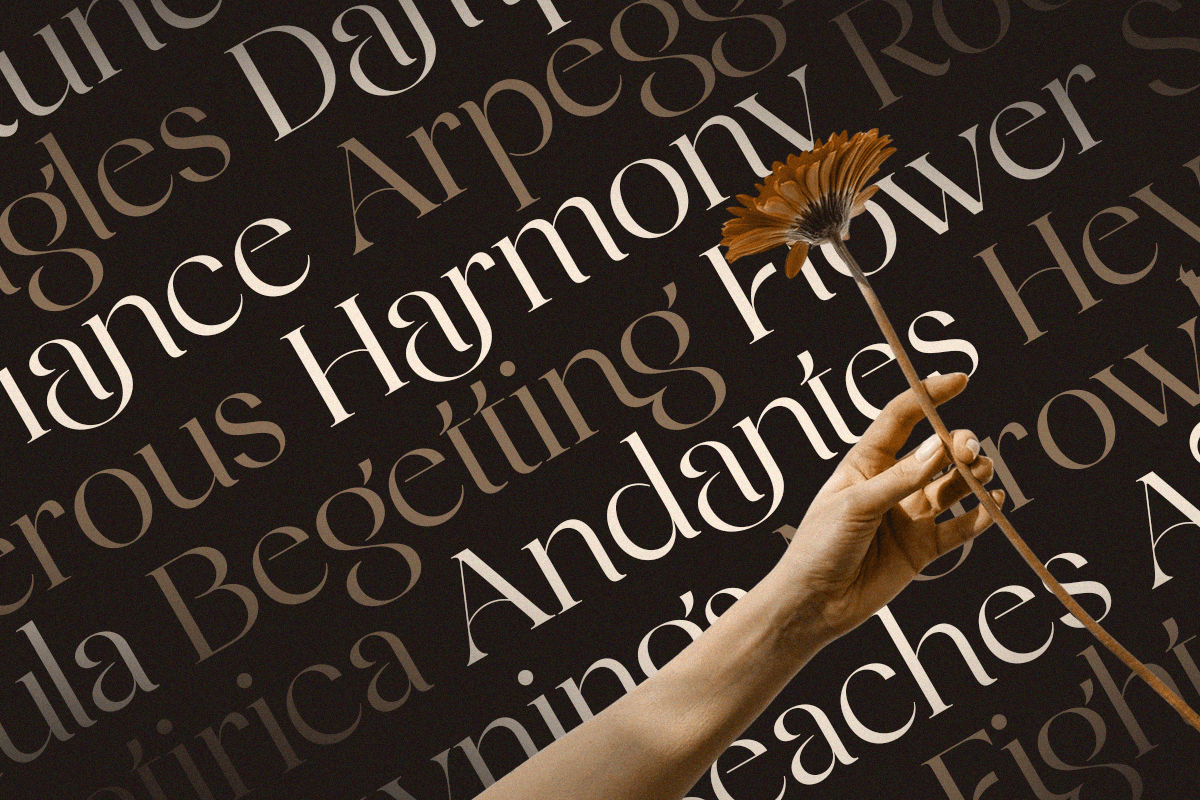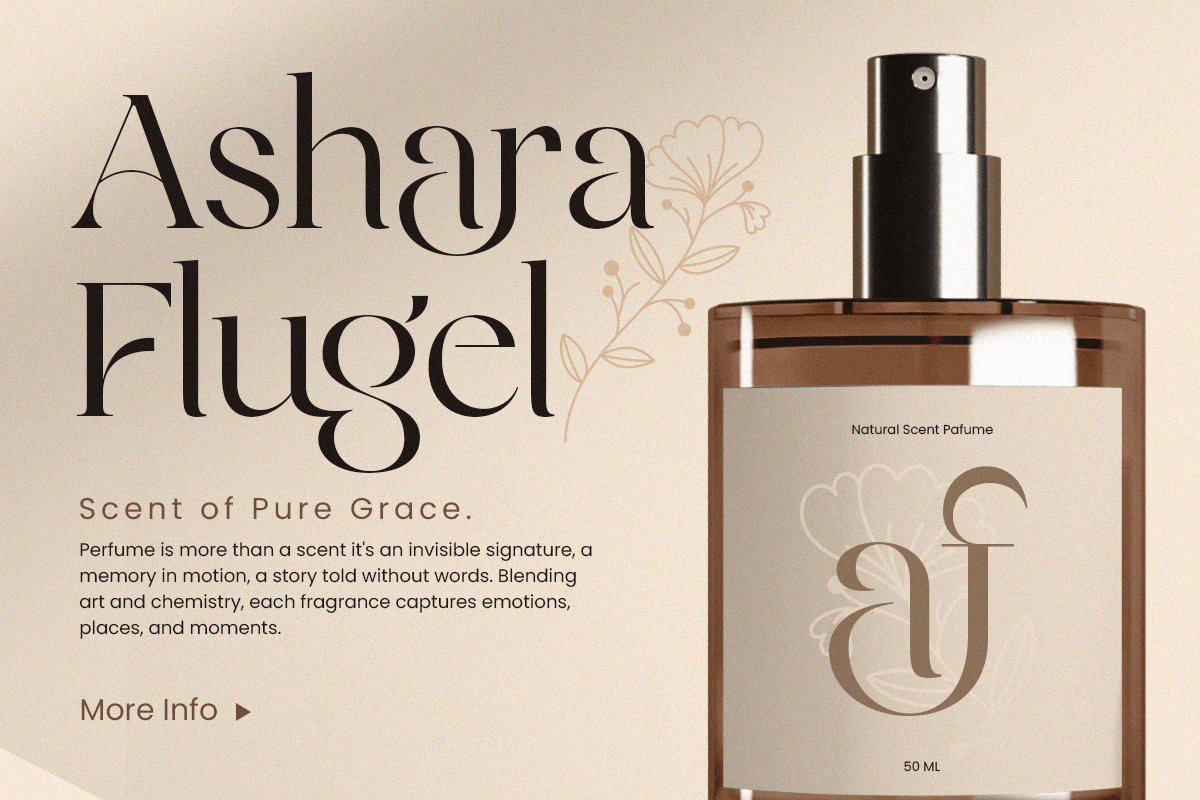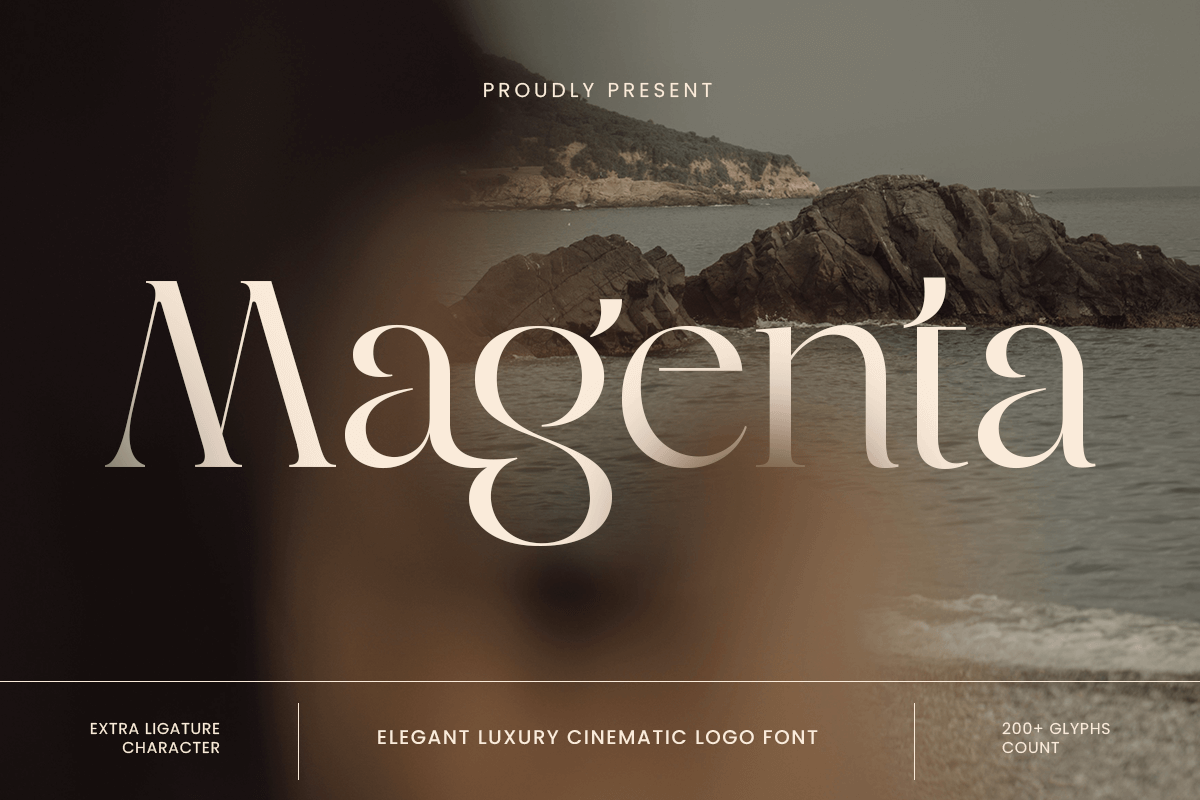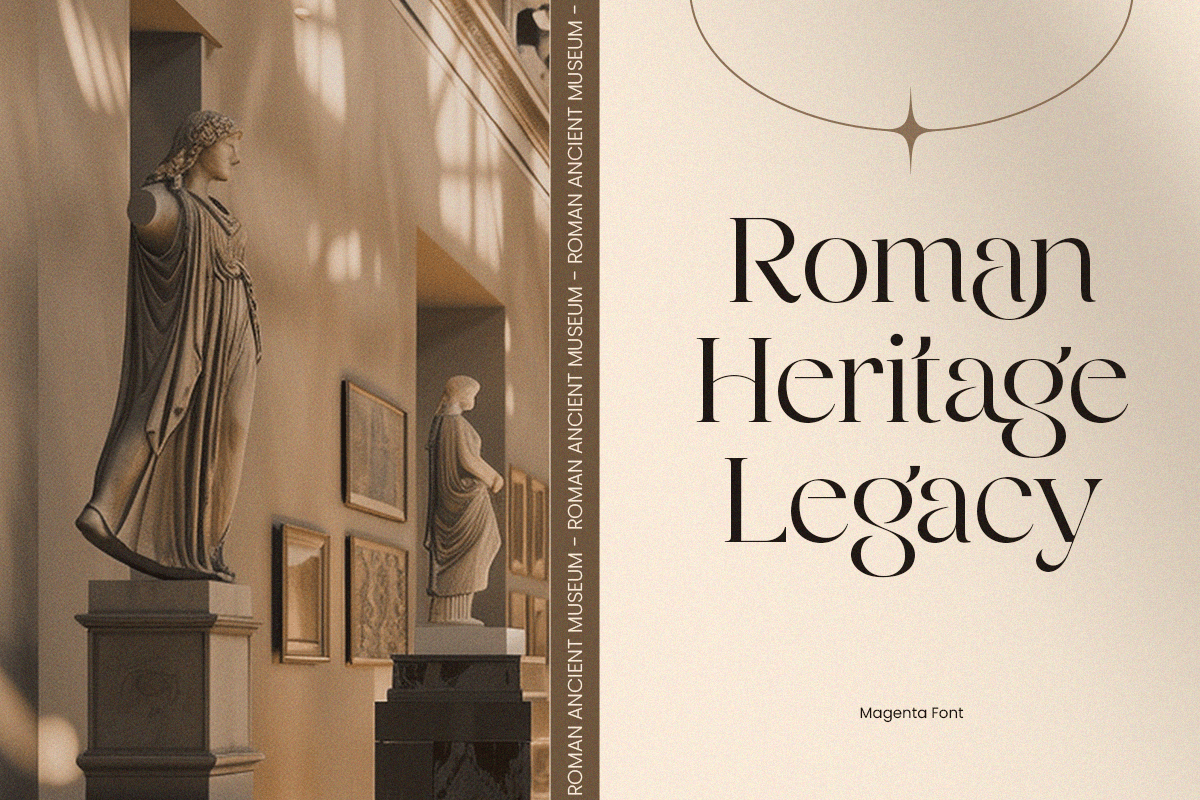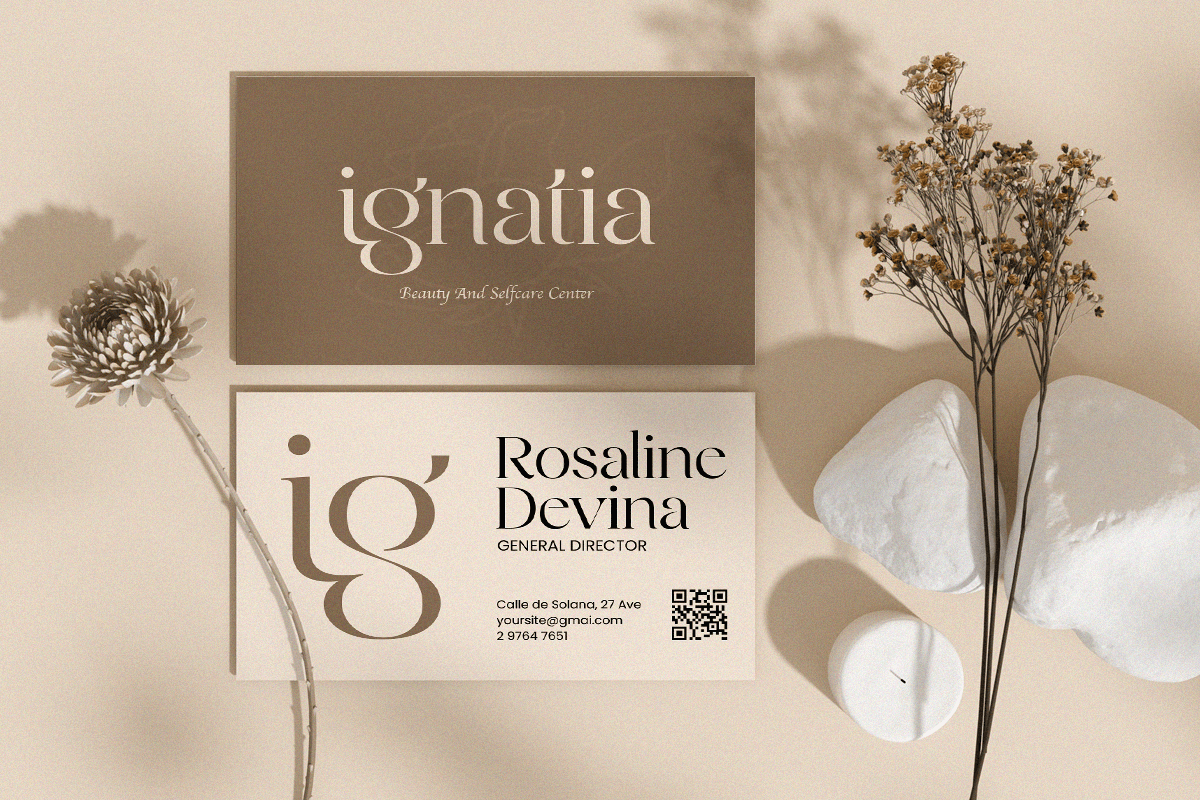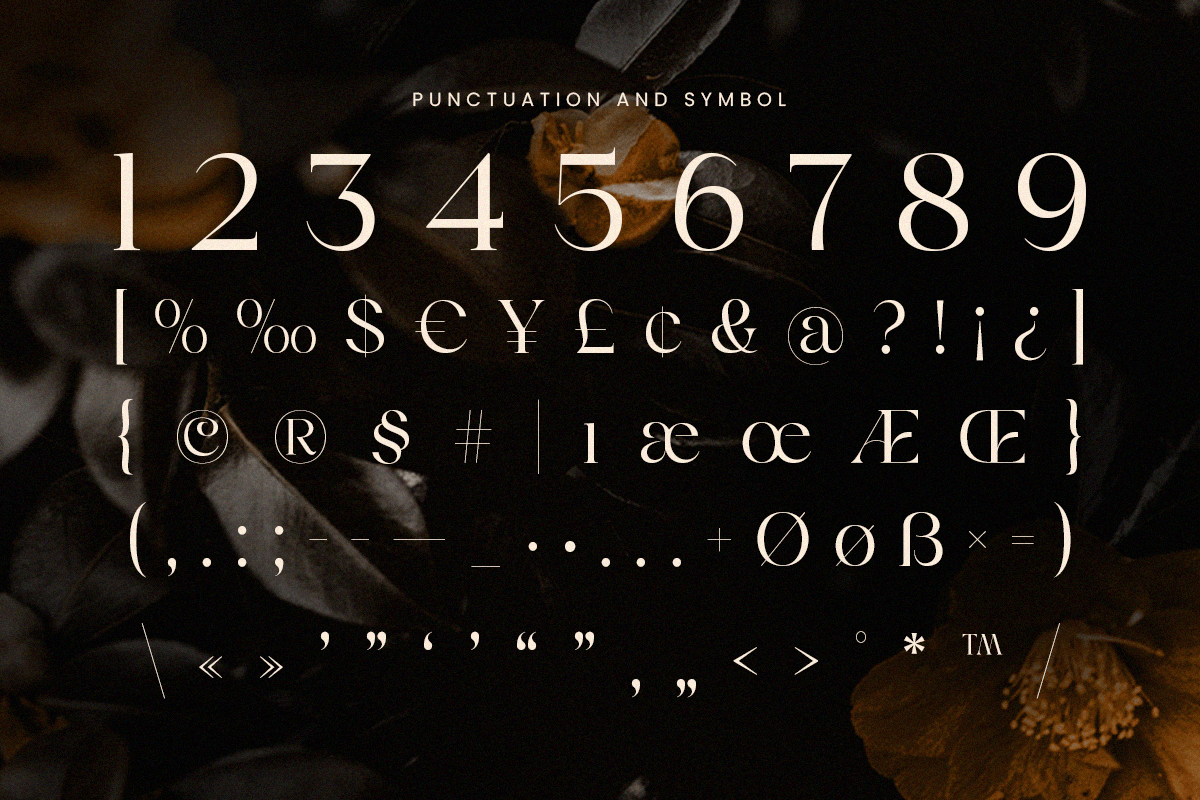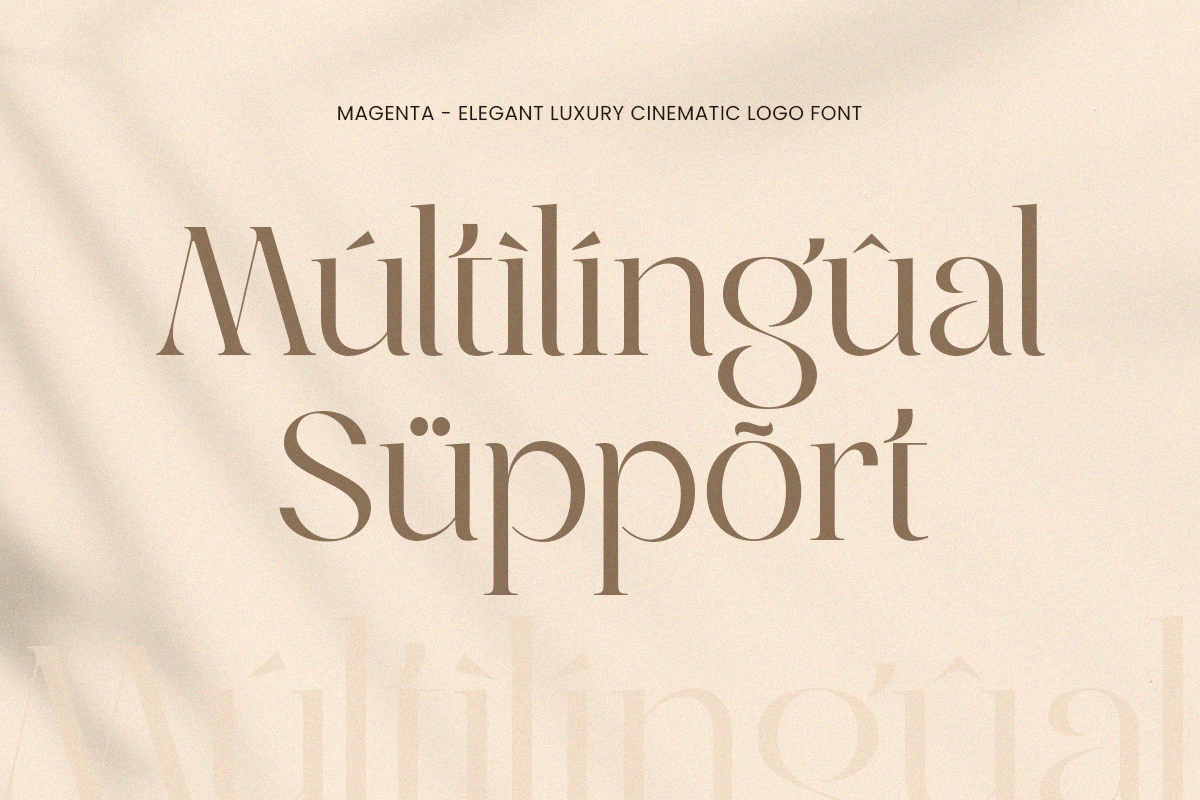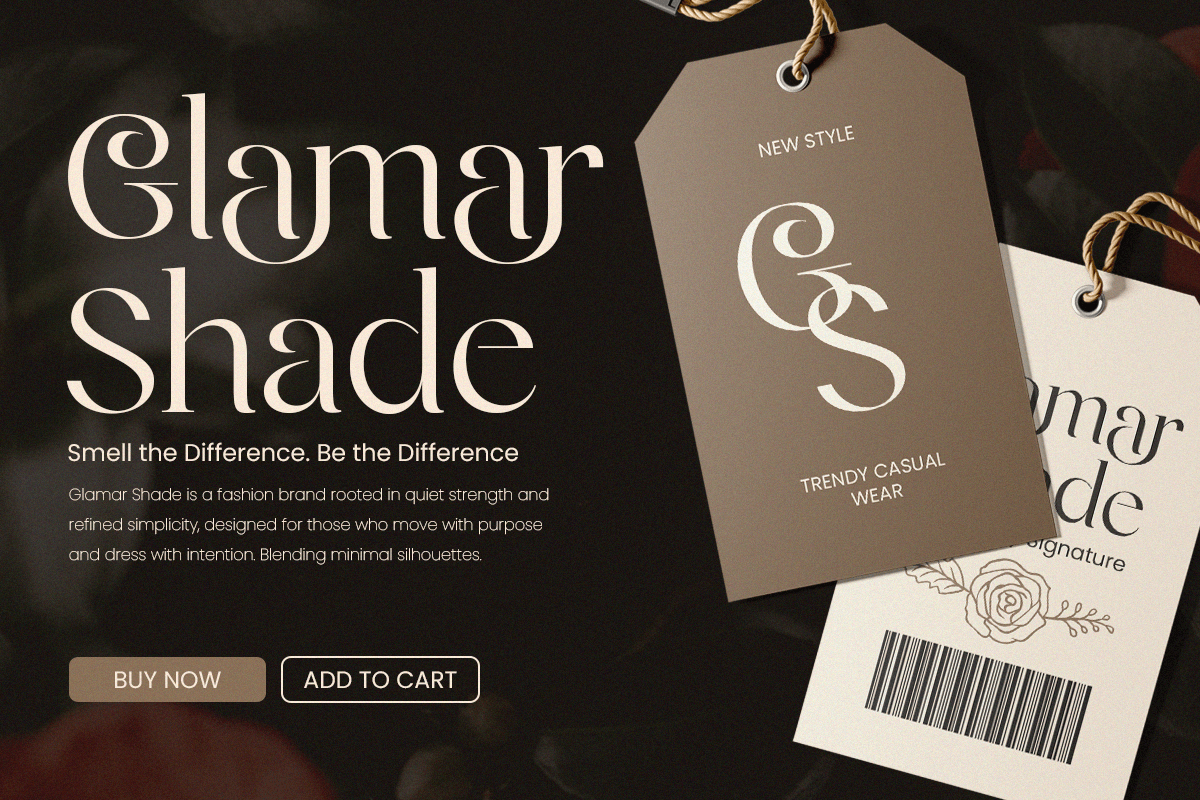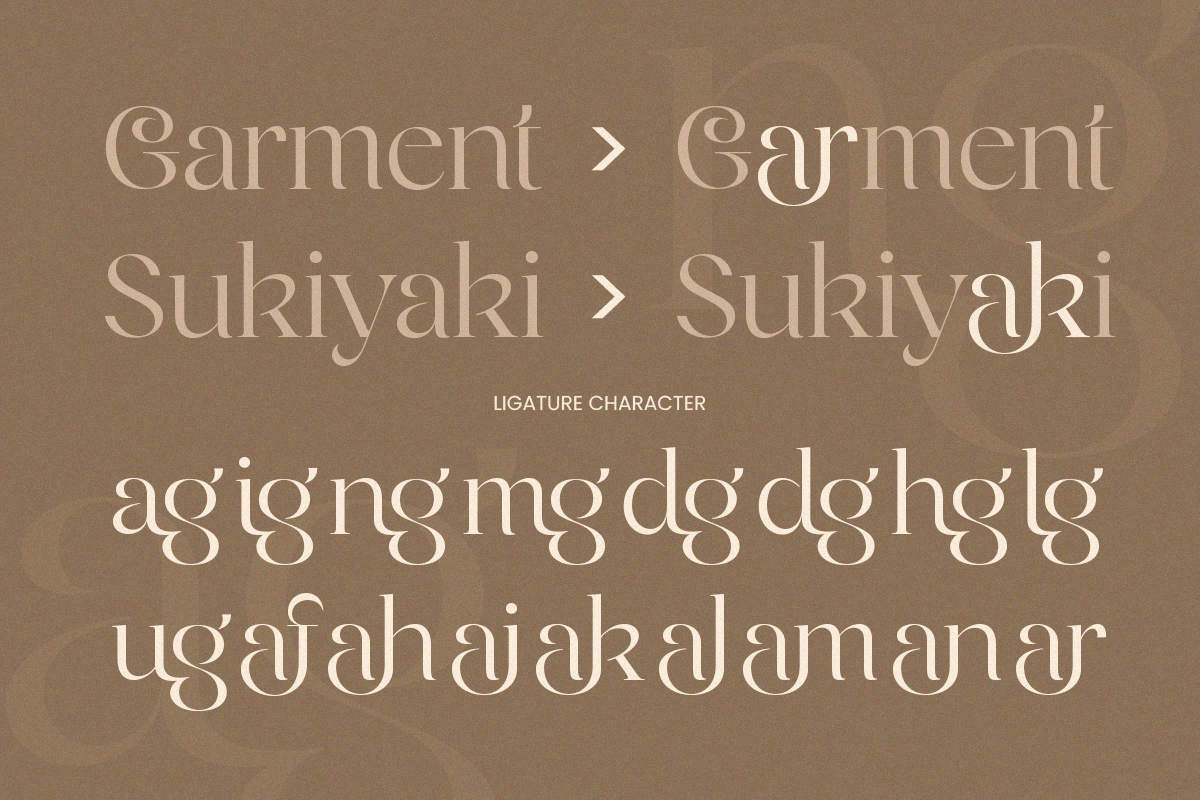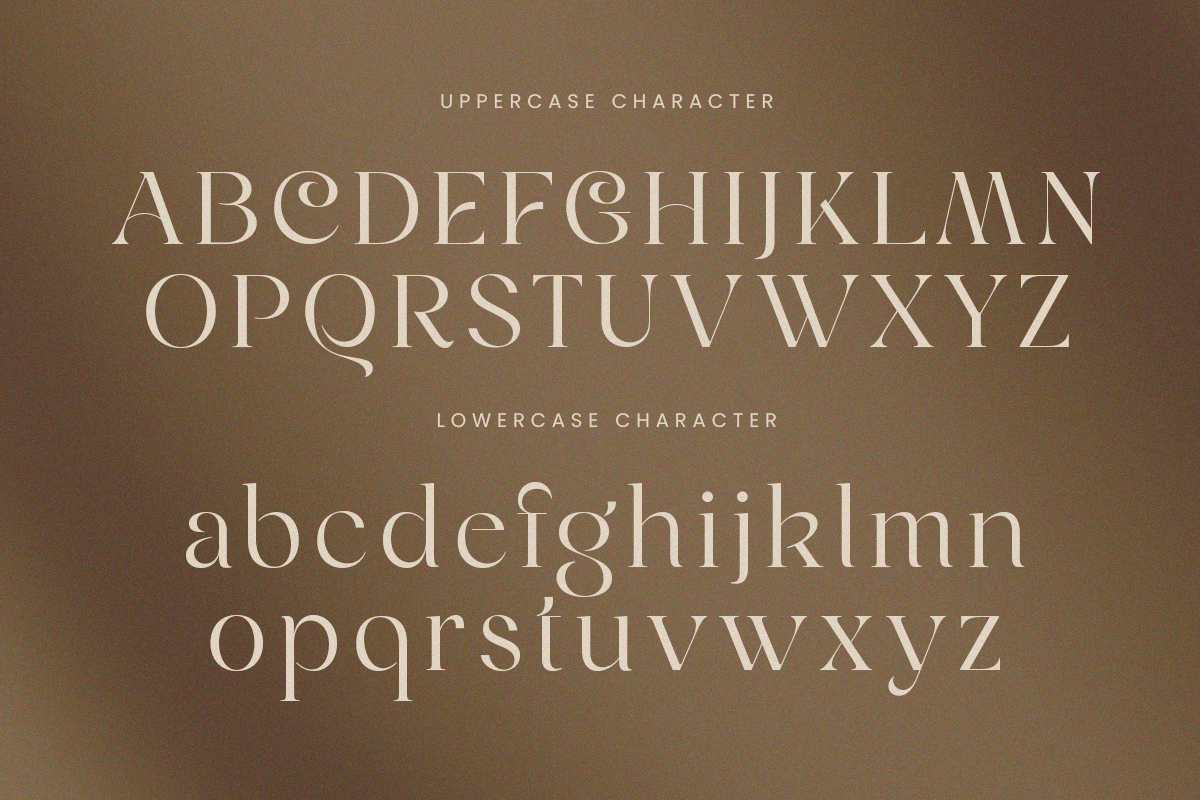
Unique Elegant Luxury Font - Magenta
Magenta is an elegant luxury cinematic logo font crafted for high-end branding, logos, and premium creative projects. Its refined, cinematic letterforms provide a polished, professional, and luxurious look ideal for fashion, lifestyle, editorial, and cinematic branding.
With sophisticated, well-balanced forms, Magenta ensures readability while delivering a premium aesthetic across both print and digital media, perfect for designers seeking a high-end cinematic serif font.
Magenta – Elegant Luxury Cinematic Logo Font Features
Elegant and luxurious cinematic character set
Perfect for premium branding, logos, and high-end designs
Uppercase, lowercase, numerals, and punctuation included
OpenType features for extra versatility
Multilingual support for Afrikaans, Albanian, Asu, Basque, Bemba, Bena, Breton, Chiga, Cornish, Dutch, English, Estonian, Filipino, Finnish, Friulian, Galician, German, Gusii, Indonesian, Irish, Italian, Kabuverdianu, Kalenjin, Kinyarwanda, Luo, Luxembourgish, Luyia, Machame, Makhuwa-Meetto, Makonde, Malagasy, Manx, Morisyen, North Ndebele, Nyankole, Oromo, Portuguese, Quechua, Romansh, Rombo, Rundi, Rwa, Samburu, Sango, Sangu, Scottish Gaelic, Sena, Shambala, Shona, Soga, Somali, Spanish, Swahili, Swedish, Swiss, and more.